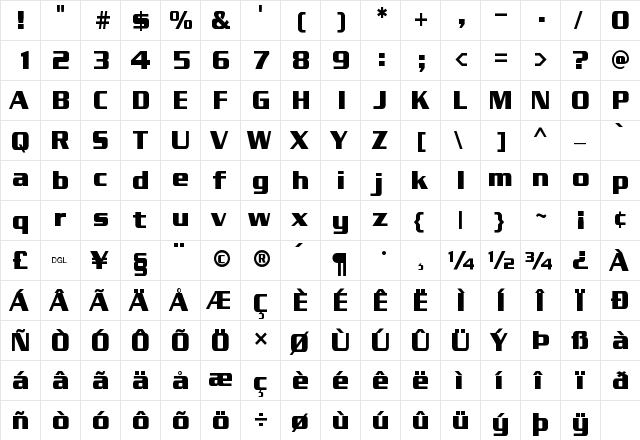
Enter Sansman 1. Bold
Design Context for Enter Sansman 1. Typeface
Enter Sansman 1. offers clean, dependable letterforms without strong stylistic allegiance, making it a practical choice for designers who need flexibility. The heavy weight commands attention and anchors typographic hierarchies.